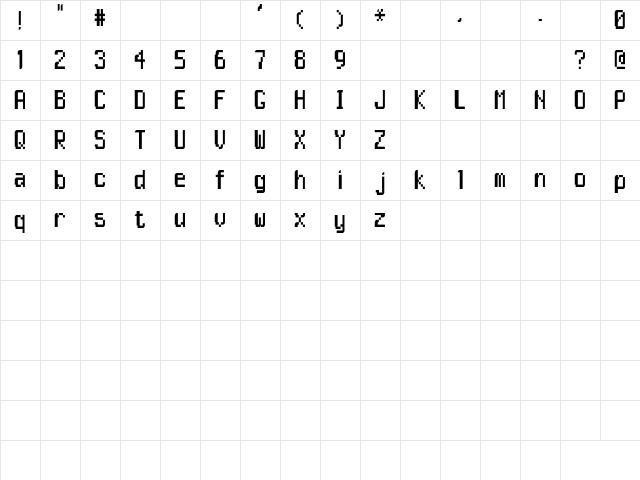
Kingbox Regular
Design Context for Kingbox Typeface
Kingbox offers clean, dependable letterforms without strong stylistic allegiance, making it a practical choice for designers who need flexibility.